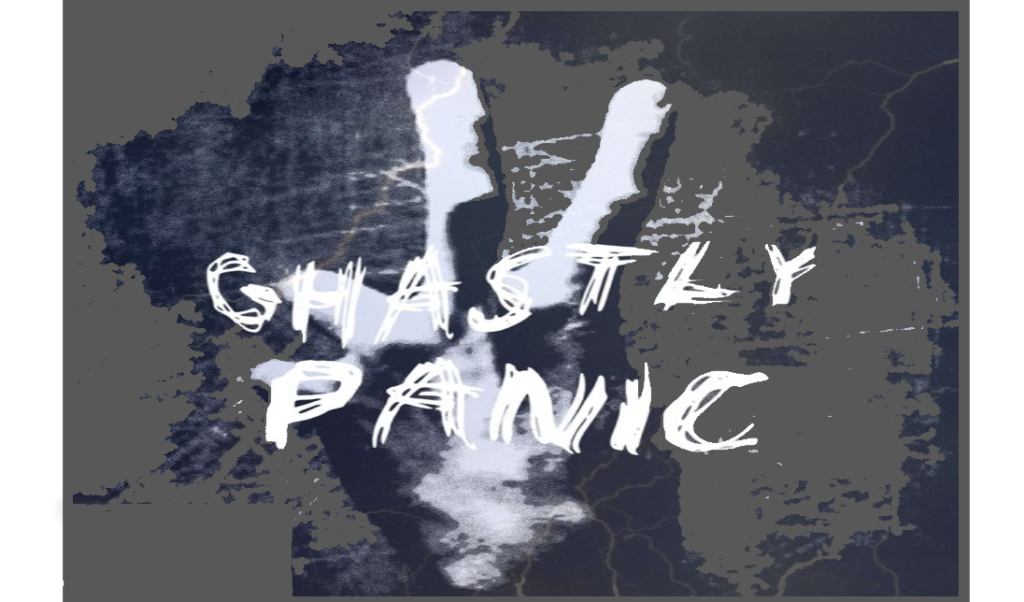
Ghastly Panic Font
Ghastly Panic Font is equal parts creepy and cool—making it a favorite among designers looking to add a chilling touch to their visuals. With its jagged strokes, handwritten chaos, and seriously spooky vibes, the Ghastly Panic typeface has become a go-to for Halloween projects, horror films, and eerie YouTube thumbnails.
Whether you’re crafting haunted house flyers or editing CapCut videos with a terrifying twist, this horror font is built to grab attention and send shivers down the spine.
What Is Ghastly Panic Font?
The Ghastly Panic Font is a hand-drawn horror typeface that looks like it was scribbled by a frightened ghost—or someone escaping a haunted house. Originally designed to reflect the wild energy of horror and thriller genres, this font became popular thanks to its raw, dramatic look.
Also known as the Ghastly Panic typeface, it’s been spotted in:
• Haunted house posters
• Creepy YouTube intros
• CapCut video edits
• Halloween invites
• Even spooky memes and TikToks
It’s like the handwriting of your nightmares—and that’s what makes it awesome.
Key Features of Ghastly Panic Font
Ghastly Panic Font
Here’s what makes Ghastly Panic Font a terrifyingly good choice for designers:
• Rough brush strokes that mimic panicked handwriting
• Jagged, uneven edges for that chaotic, distressed feel
• Bold lettering that grabs attention—even in a crowded visual
• High readability in larger sizes (like posters or thumbnails)
• Great contrast on both light and dark backgrounds
Whether you’re going for a horror flick vibe or just want to give your design a spooky twist, these features deliver serious impact.
Pro Tip: Combine Ghastly Panic Font with minimalist elements to amplify its drama.
Applications: Where and How to Use Ghastly Panic Font
Popular Uses for the Ghastly Panic Typeface
Designers, YouTubers, and content creators love this font for its raw energy and instant creep factor. Here’s where it shines:
• Halloween Invitations & Party Flyers – Sets the spooky tone instantly
• CapCut Edits – The Ghastly Panic font for CapCut is a favorite for horror video transitions and titles
• T-shirt Designs & Merch – Especially for Halloween or horror-themed apparel
• YouTube & TikTok Thumbnails – Makes content stand out in a sea of boring fonts
• Escape Room Branding – Immersive visuals that tell a chilling story
• Book Covers – Especially in horror, thriller, or post-apocalyptic genres
🕹️ Even game developers use it for in-game menus or intro screens that need a dose of fear.
Final Thoughts on Ghastly Panic Font
The Ghastly Panic Font is everything a horror fan—or designer—could ask for. It’s wild, expressive, and impossible to ignore. Whether you’re creating eerie CapCut edits, haunted house flyers, or horror-inspired merch, this font brings the fear and the flair.
FAQs About Ghastly Panic Font
Q: Is the Ghastly Panic Font good for tattoos?
A: It’s perfect for horror-themed tattoos, but always test it with your artist first to ensure clarity and detail.